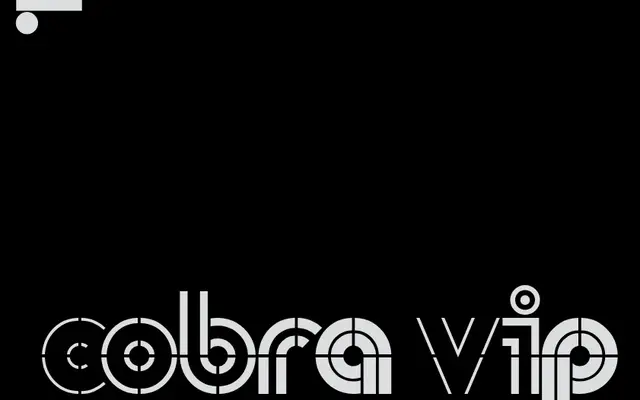
LL Cobra
Lineto · Cornel Windlin, Samara Keller, Weichi He · 1996
LL Cobra specimen from Lineto
A double-stroke geometric display typeface rooted in 1980s British sportswear signage, reborn as a variable font with adjustable stroke-width ratios.
Originally drawn by Cornel Windlin in 1996 from the logo of British high-street chain Cobra, itself a close relative of Ad Werner's 1972 Dubbeldik, the family has been rebuilt by Samara Keller as a variable font with a continuous range of black-to-white stroke ratios. At its extremes the modulation tips into Op-Art territory, making it as useful for pattern and surface design as for headline work. The full glyph set has been corrected and harmonised to meet contemporary standards while preserving the raw, mono-linear geometry of the original.
LL Cobra is a display typeface built from geometric two-line letterforms derived from vernacular signage and low-brow type design. Its double-stroke construction and variable width modulation place it firmly in the display/decorative category with no conventional text application.